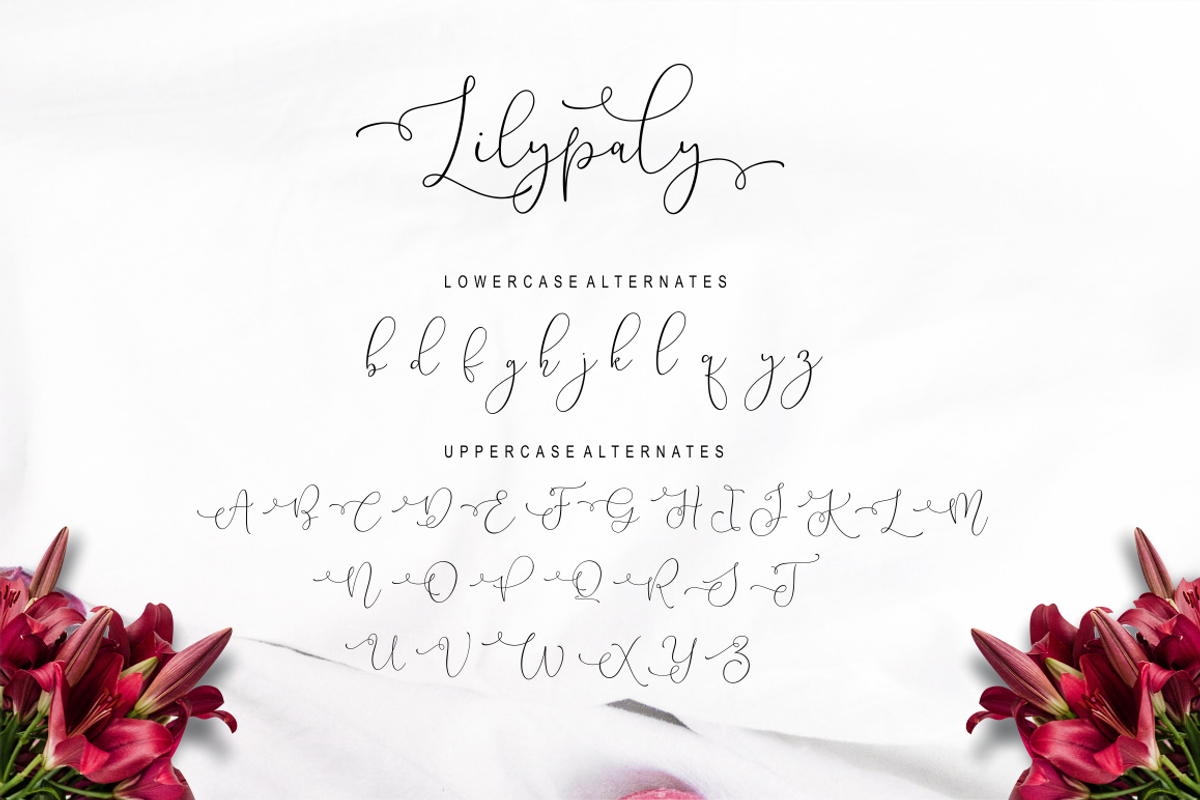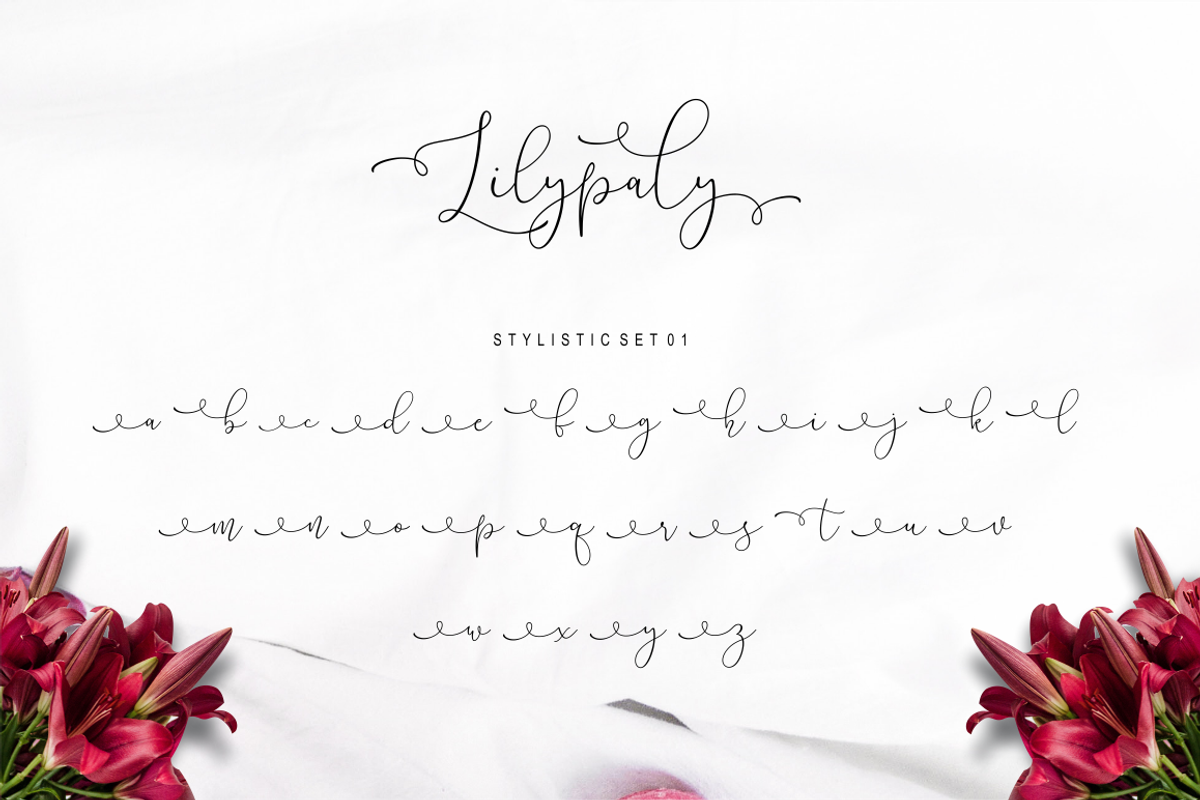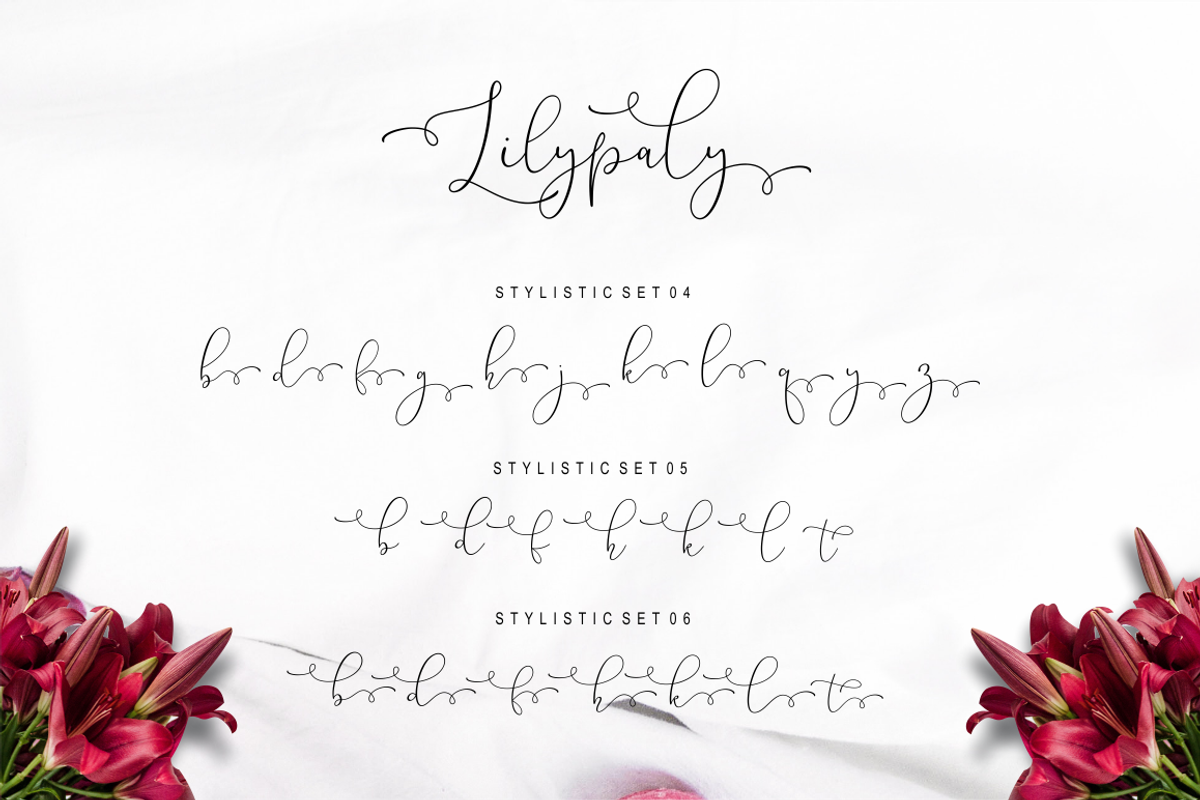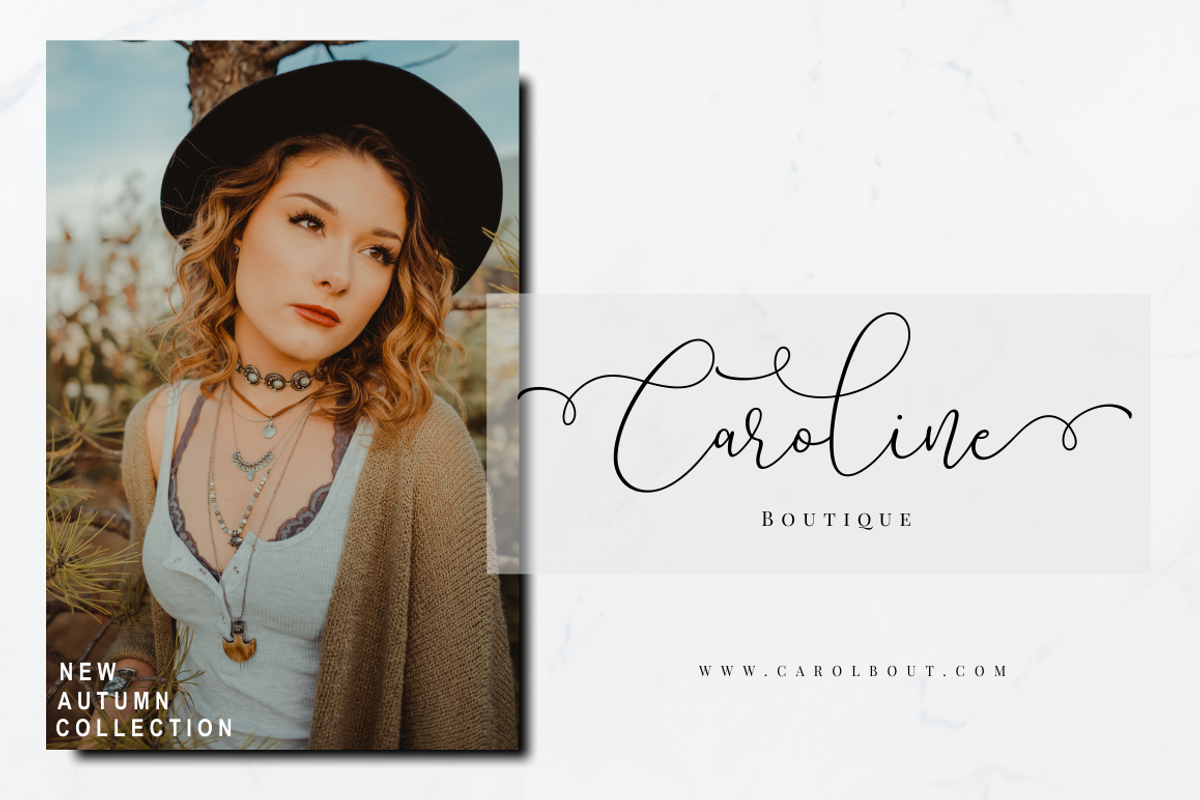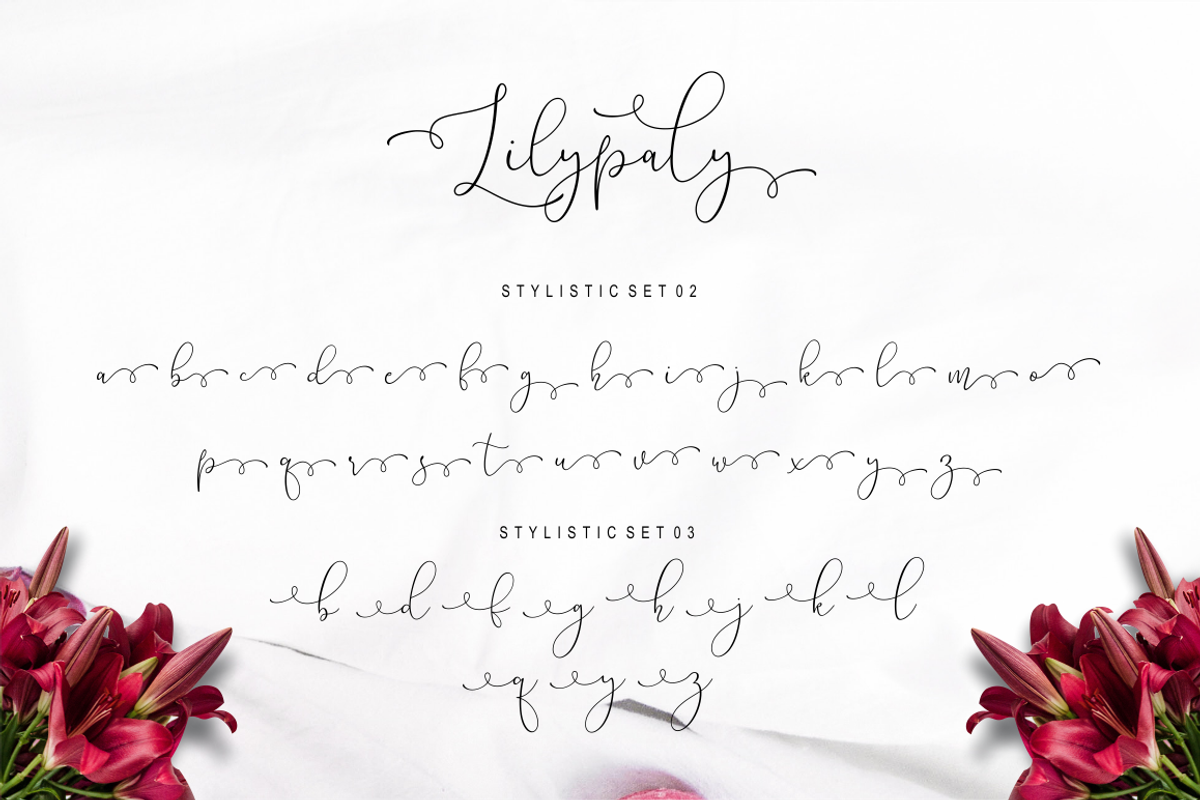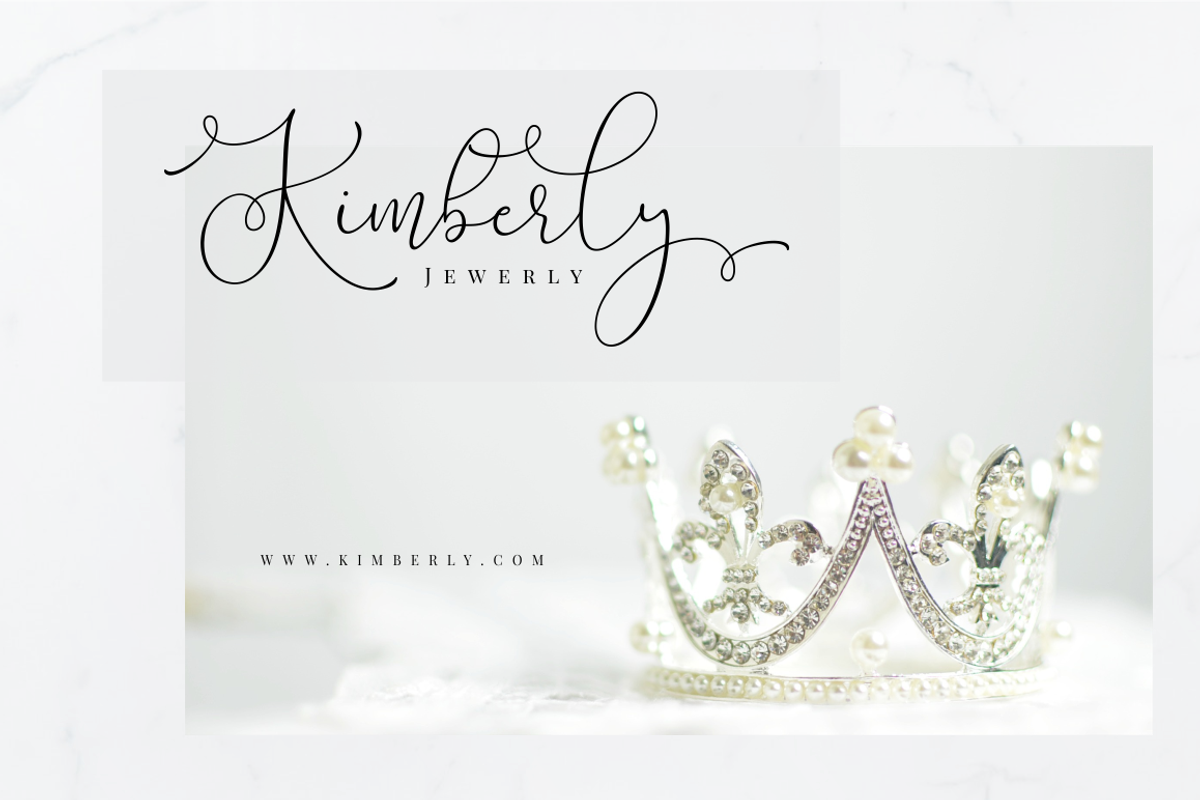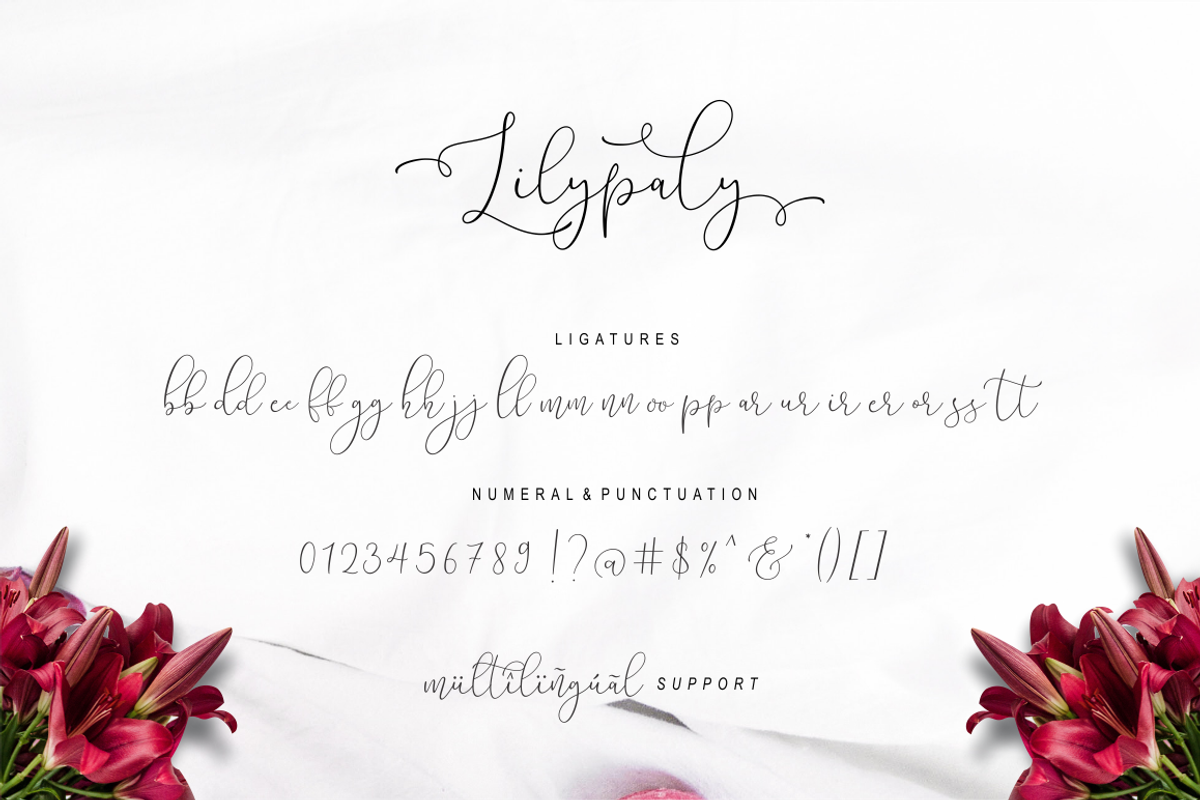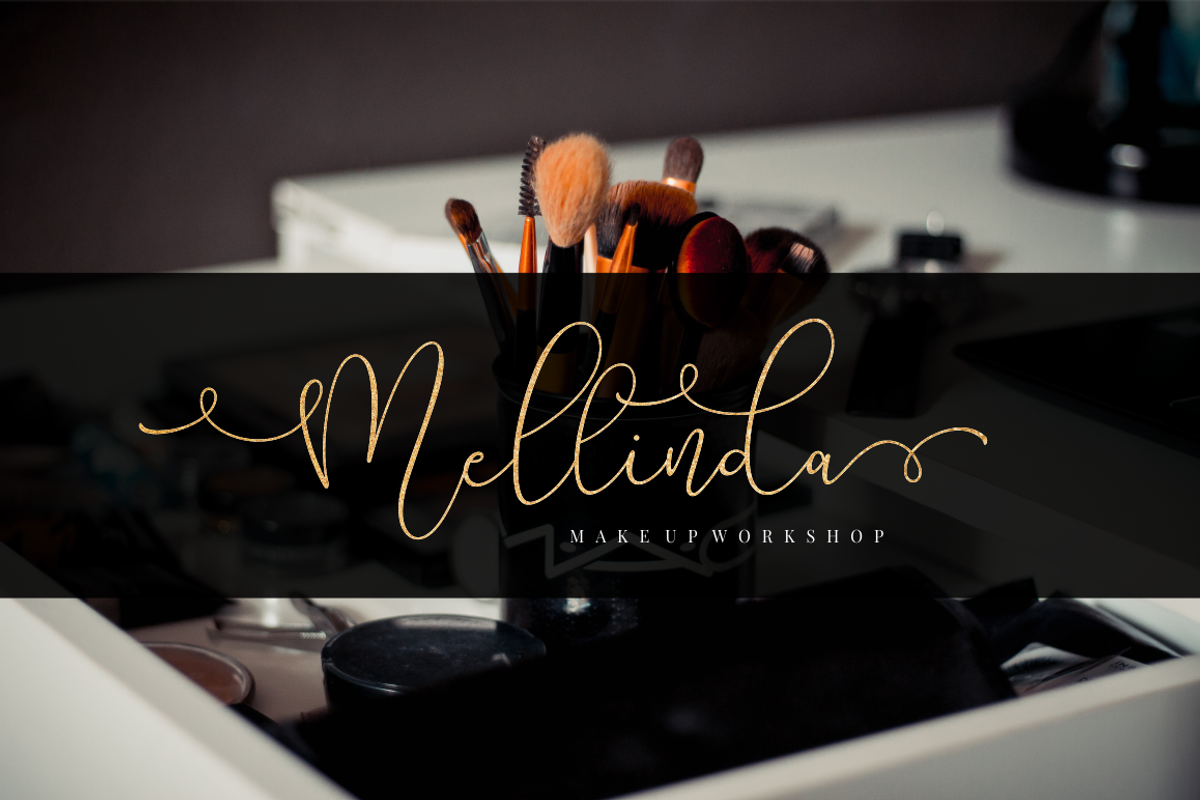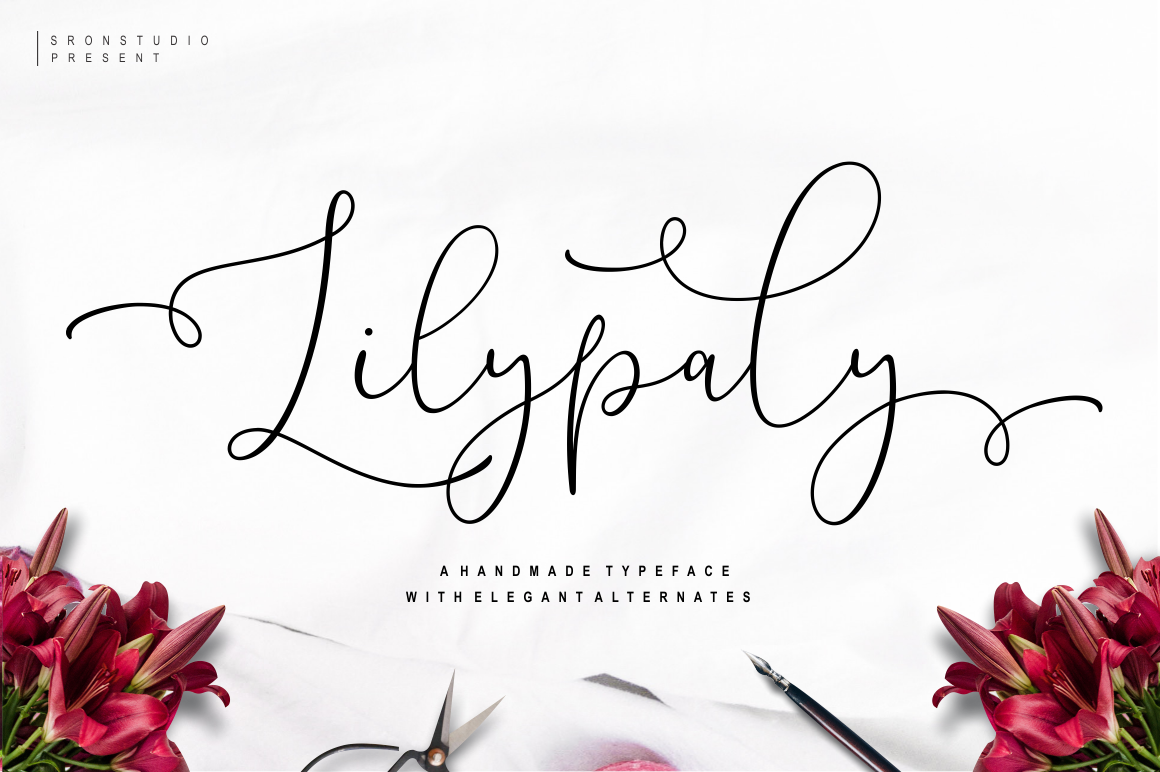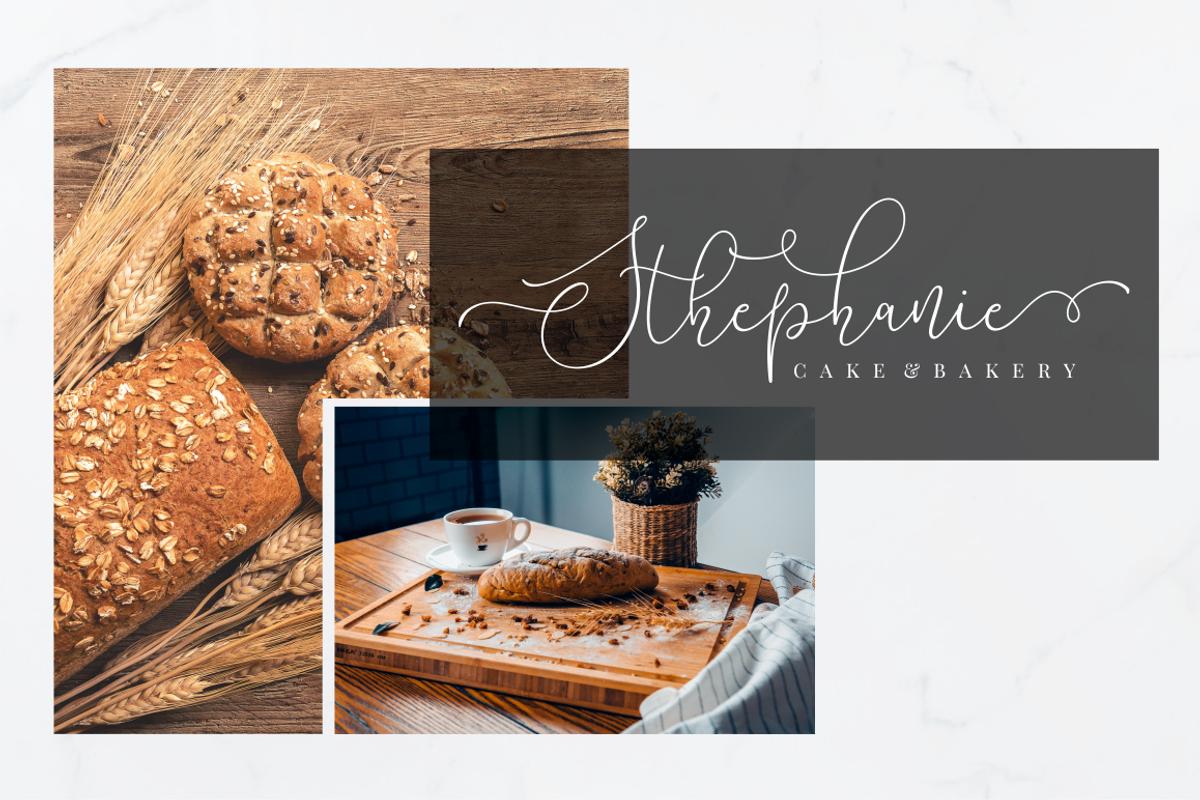
Lilypaly - Handlettering Font
Introducing my new font Lilypaly !
Lilypaly is a modern and elegant font with a lot of stylistic alternates for your beautiful project. I made this font carefully so that each letter could be connected well and elegantly either using alternate or not.
Lilypaly includes start and ending swash, and middle swash for some letters, this is very easy to use, just rely on your creativity !